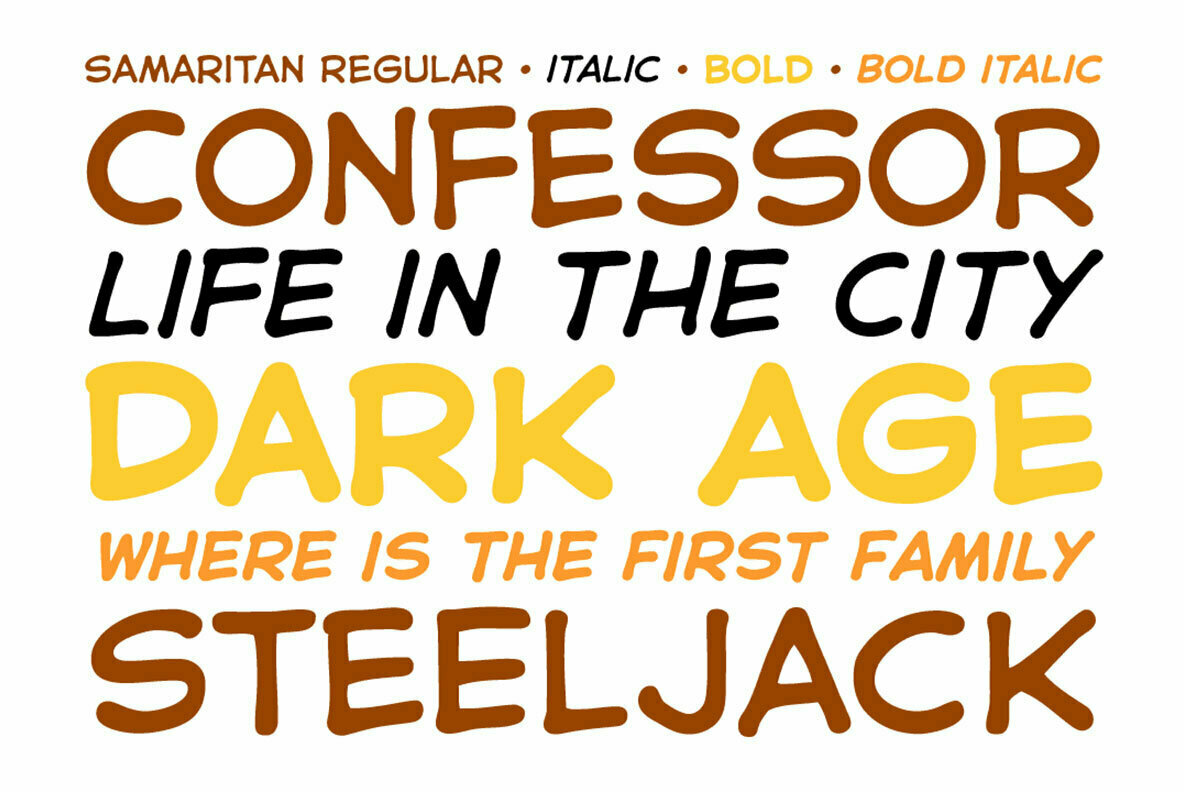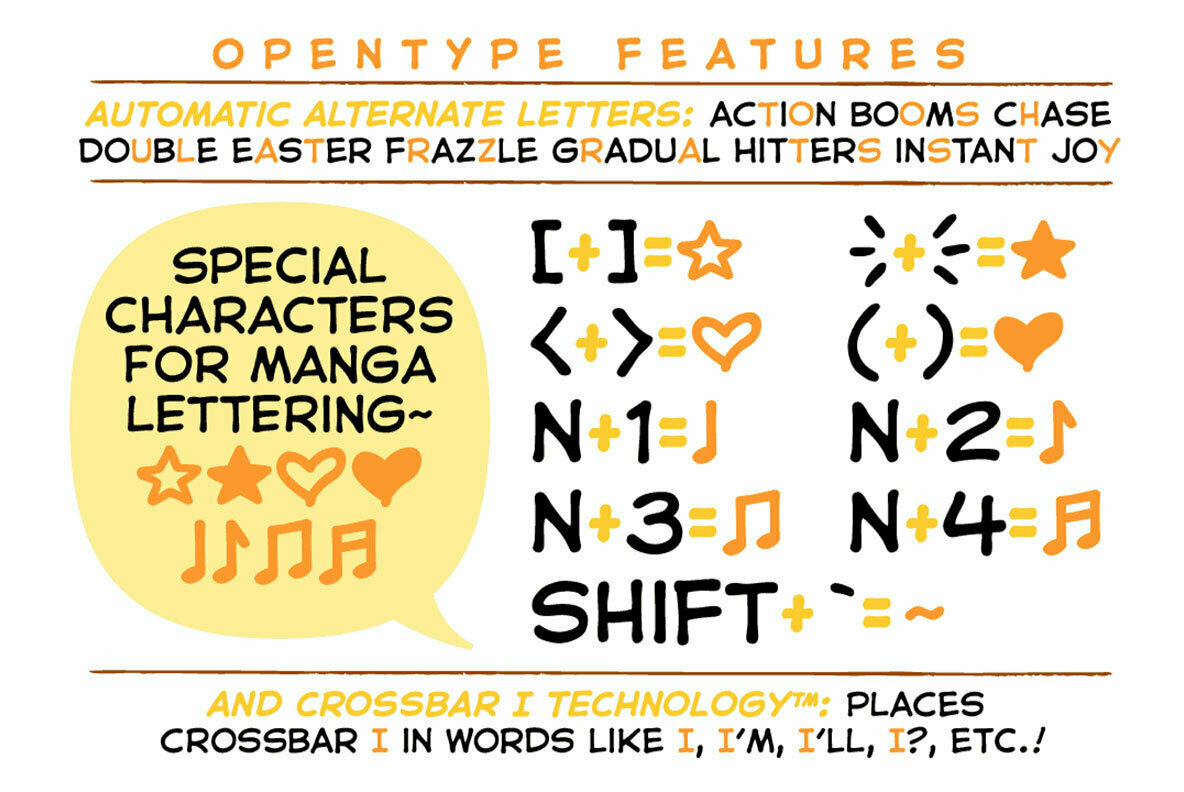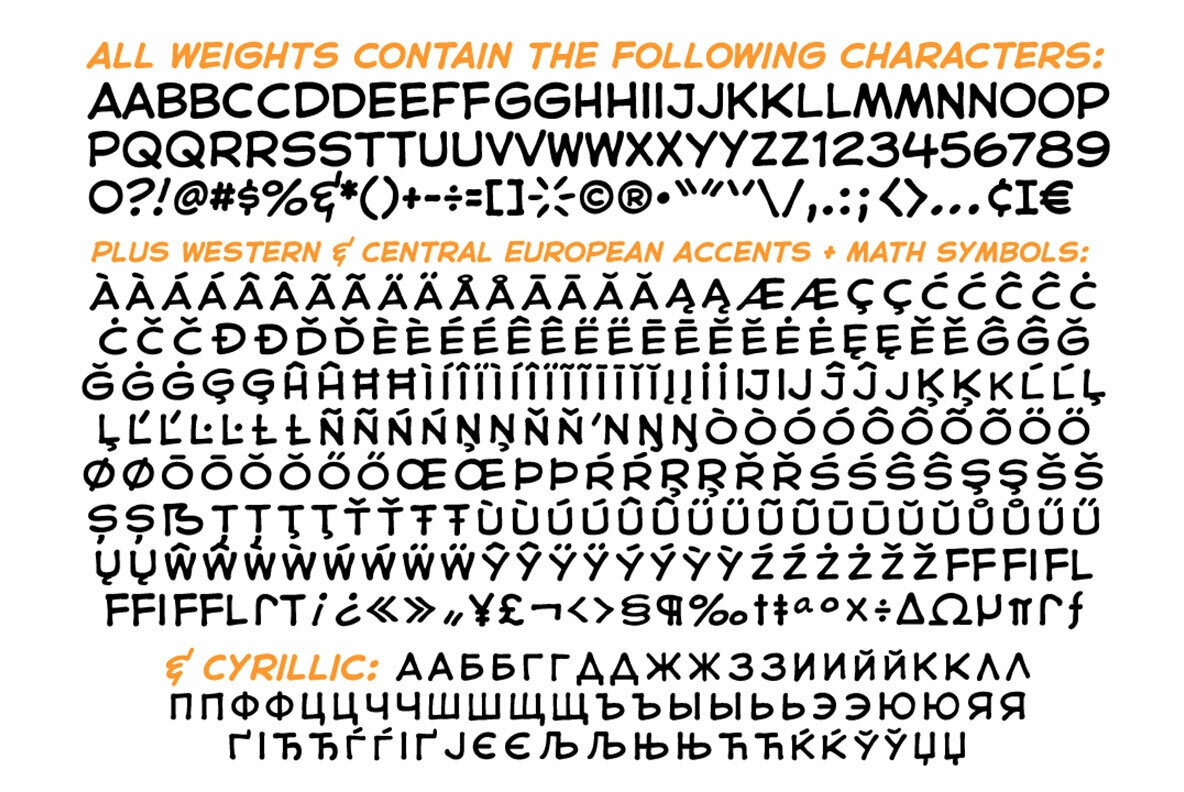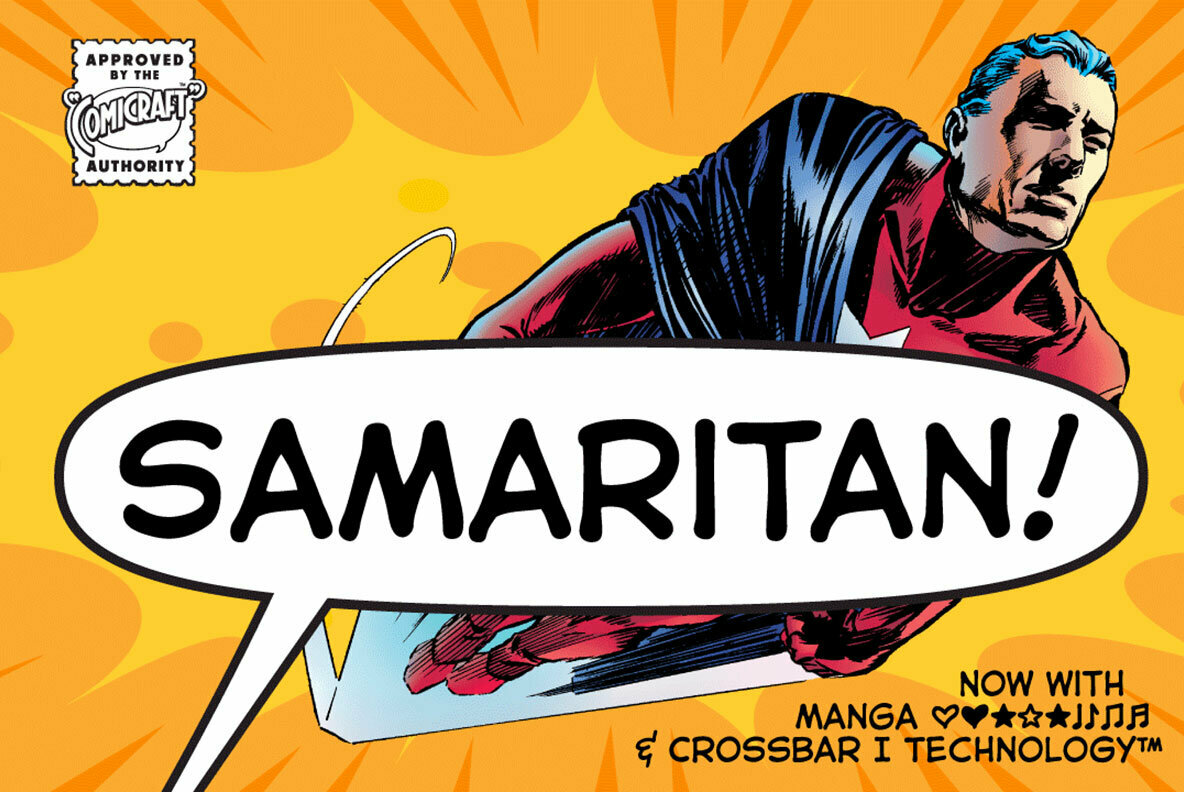
It’s another beautiful day in scenic Astro City, home of post modern gods and ordinary mortals alike. Look into the sky and perhaps you’ll get a glimpse of everyone’s favorite man of the hour, if not the man of tomorrow... SAMARITAN!
Samaritan contains four weights (Regular, Italic, Bold & Bold Italic) with alternate uppercase characters, Western & Central European accents, Cyrillic, Manga hearts, stars & notes and our famed Crossbar I Technology™